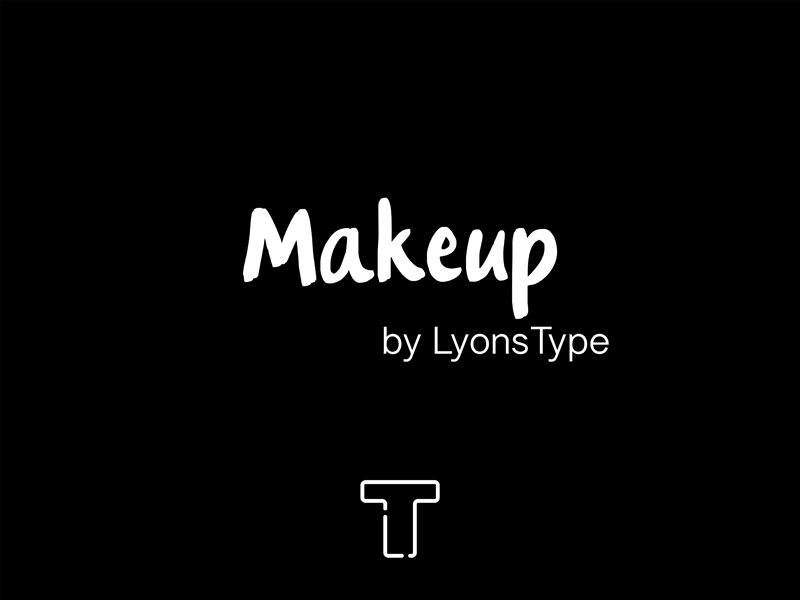
LT Makeup Regular
LT Makeup font by LyonsType offers a captivating handwritten brush style that evokes the elegance and creativity synonymous with makeup, skincare, and beauty. This free font’s artistic expression shines through its bold strokes, imbuing each letter with personality and flair. With its dynamic brush design, LT Makeup serves as the perfect choice for projects aiming to convey a sense of sophistication and charm.
Ideal for beauty branding, social media graphics, or personal projects seeking a handmade touch, this font captures attention effortlessly. Download LT Makeup today to elevate your designs with its unique aesthetic appeal.